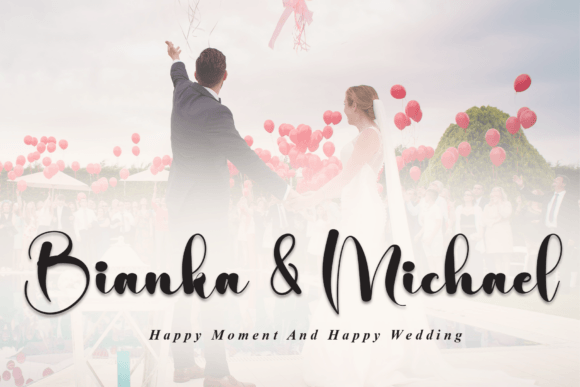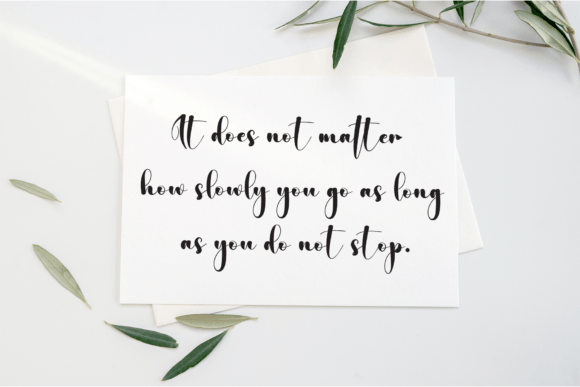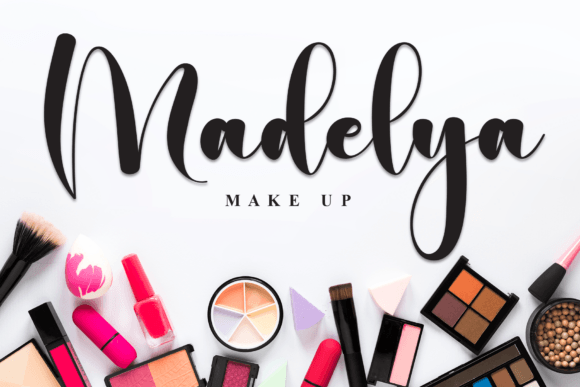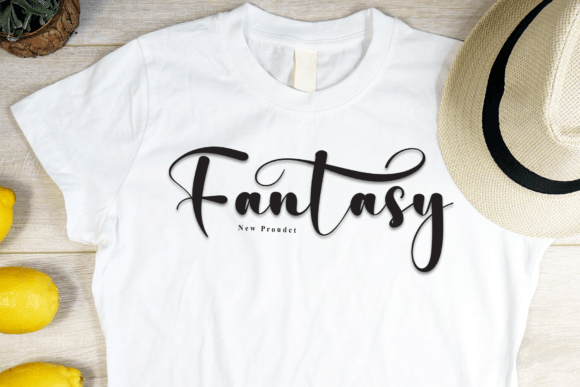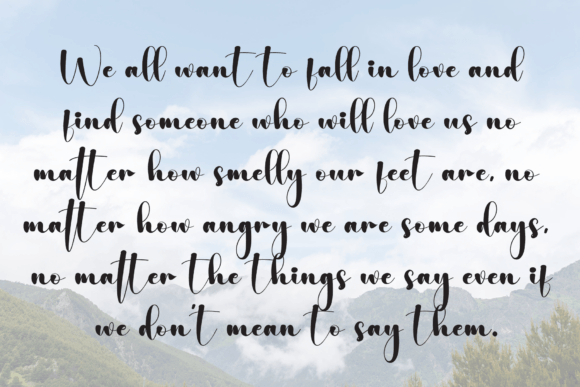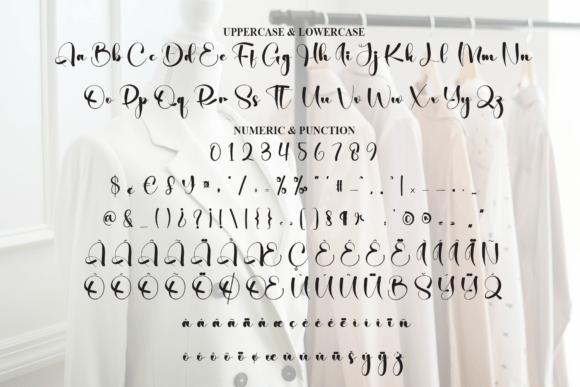
Introducing Costume Font: The Ultimate Handwritten Style for Designers and Crafters
Are you tired of using the same old fonts in your designs? Look no further! Costume Font is a game-changing handwritten font that combines bold and thin lines, giving it a unique and stylish look. With its playful, personal feel and mix of thick and thin strokes, Costume Font is perfect for designers and crafters looking to add a touch of personality to their work.
What Makes Costume Font So Special?
Costume Font is a carefully crafted handwritten font that stands out from the crowd. Its unique blend of bold and thin lines creates a visually appealing contrast that adds depth and interest to any design. Whether you’re working on a logo, branding project, or craft project, Costume Font is sure to make your work stand out.
One of the key features that sets Costume Font apart is its mix of thick and thin strokes. This creates a sense of movement and energy, giving your designs a dynamic and playful feel. The font’s handwritten style also adds a personal touch, making it perfect for projects where you want to convey a sense of personality and whimsy.
Costume Font is a versatile font that can be used in a wide range of design projects. Whether you’re a professional designer or a crafter working on a DIY project, Costume Font is the perfect choice. Its unique style and playful feel make it ideal for:
- Logos and branding projects
- Craft projects, such as handmade cards and invitations
- Web design and development projects
- Print design projects, such as brochures and flyers
Tips for Using Costume Font in Your Designs
To get the most out of Costume Font, here are a few tips to keep in mind:
- Use it sparingly: While Costume Font is a beautiful font, it can be overwhelming if used too much. Use it sparingly to add emphasis and personality to your designs.
- Pair it with other fonts: Costume Font pairs well with a variety of other fonts, including sans-serif and serif fonts. Experiment with different pairings to find the one that works best for your project.
- Experiment with colors: Costume Font looks great in a variety of colors, from bold and bright to soft and pastel. Experiment with different colors to find the one that works best for your project.
Where to Use Costume Font
Costume Font can be used in a wide range of projects, both digital and print. Here are a few ideas to get you started:
- Blog and website design
- Handmade cards and gifts
Costume Font is a unique and stylish handwritten font that’s perfect for designers and crafters looking to add a touch of personality to their work. With its bold and thin lines, playful feel, and mix of thick and thin strokes, Costume Font is sure to make your designs stand out. Whether you’re working on a logo, branding project, or craft project, Costume Font is the perfect choice.